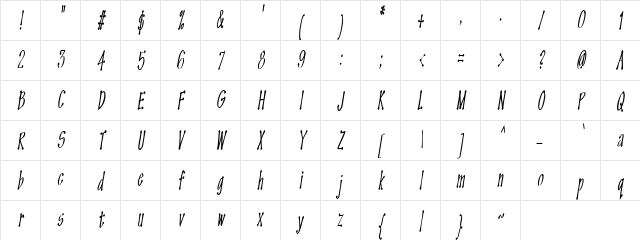
OMEGA Old Face Regular Free Font
OMEGA Old Face Regular
OMEGA Old Face Family
OMEGA Old Face Regular
OMEGA Old Face Regular Font Preview
OMEGA Old Face Regular Uppercase Preview
OMEGA Old Face Regular Lowercase Preview
OMEGA Old Face Regular Numeric Preview
OMEGA Old Face Regular Character Map
Complete OMEGA Old Face Regular glyph index. Displaying only characters natively supported by OMEGA Old Face Regular font.
Design Context for OMEGA Old Face
OMEGA Old Face is a composed and adaptable typeface that performs quietly and consistently across a wide range of design contexts.